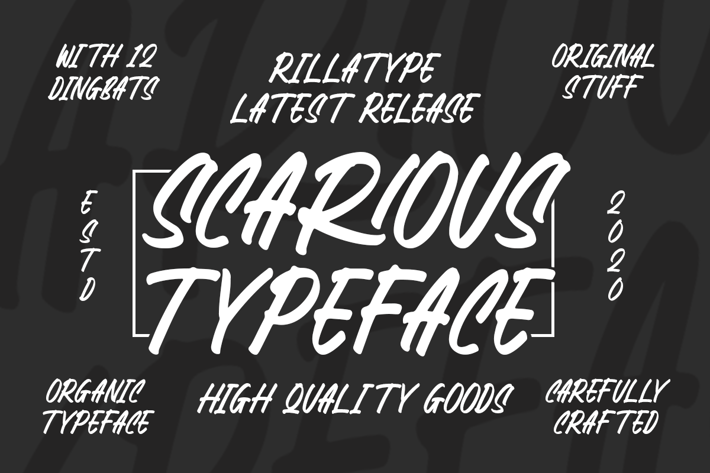
Scarious Typeface
Introducing our latest Font, Scarious Typeface. This font is perfectly made to be applied for logo, logotype, magazines, book, branding, packaging, fashion, stationary, novel, sans, display. Thank You!